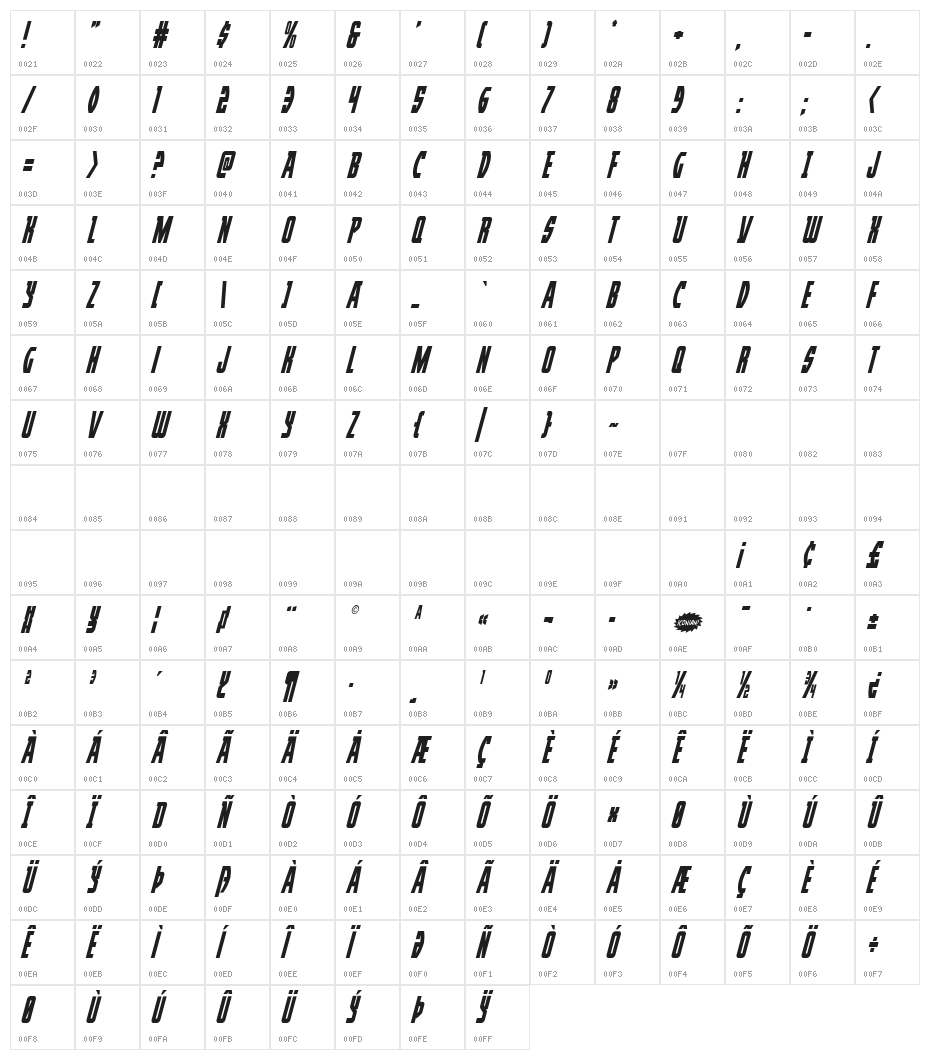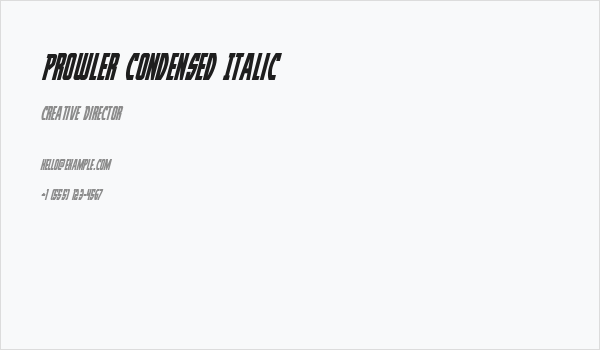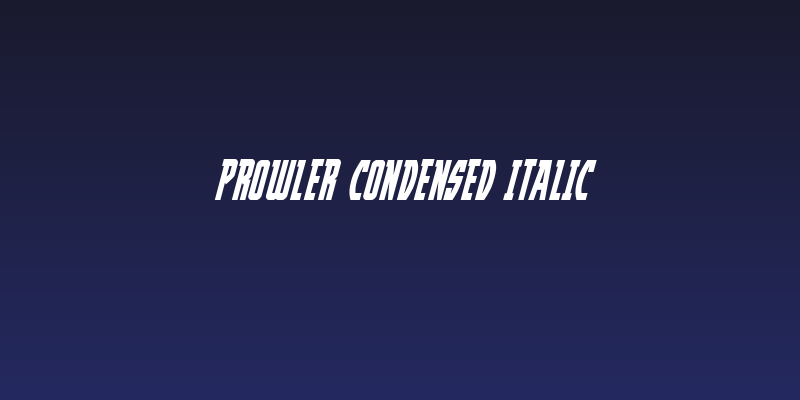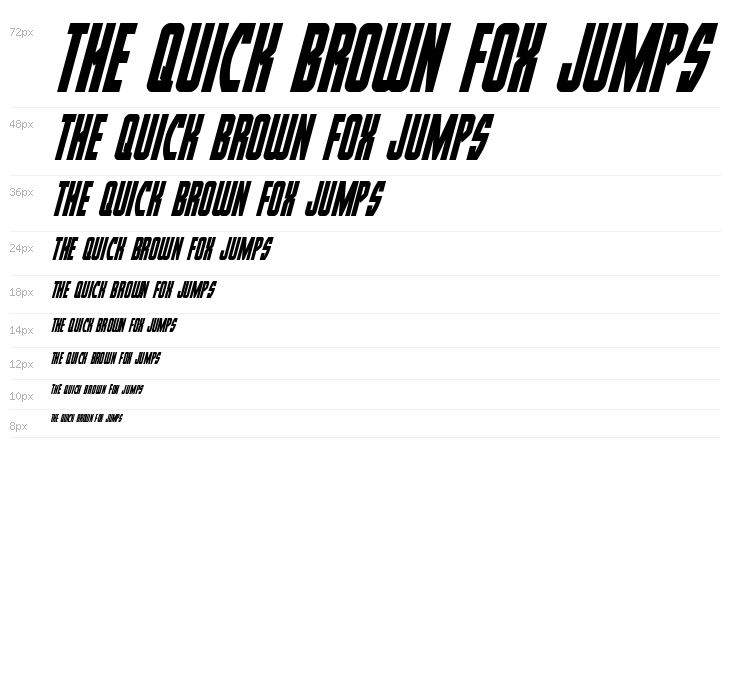
Prowler Condensed Italic Font
Prowler Condensed Italic Description
This font features a bold and dynamic style with a condensed and italicized form. The characters are sharply angled, giving a sense of movement and urgency. The uppercase letters are tall and narrow, while the lowercase letters maintain a consistent height, creating a cohesive look. The numbers and special characters follow the same angular and condensed design, ensuring uniformity across all elements. This font's strong presence makes it ideal for attention-grabbing designs.
Proposed ProjectsIdeal for sports branding, action movie posters, dynamic advertisements, and edgy graphic designs.